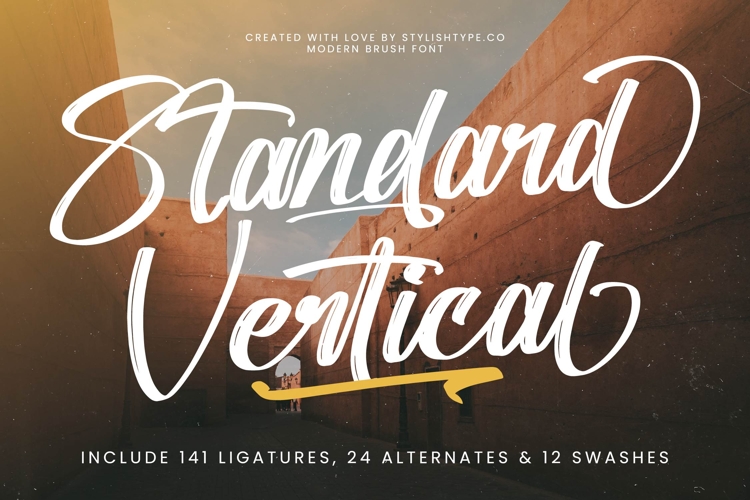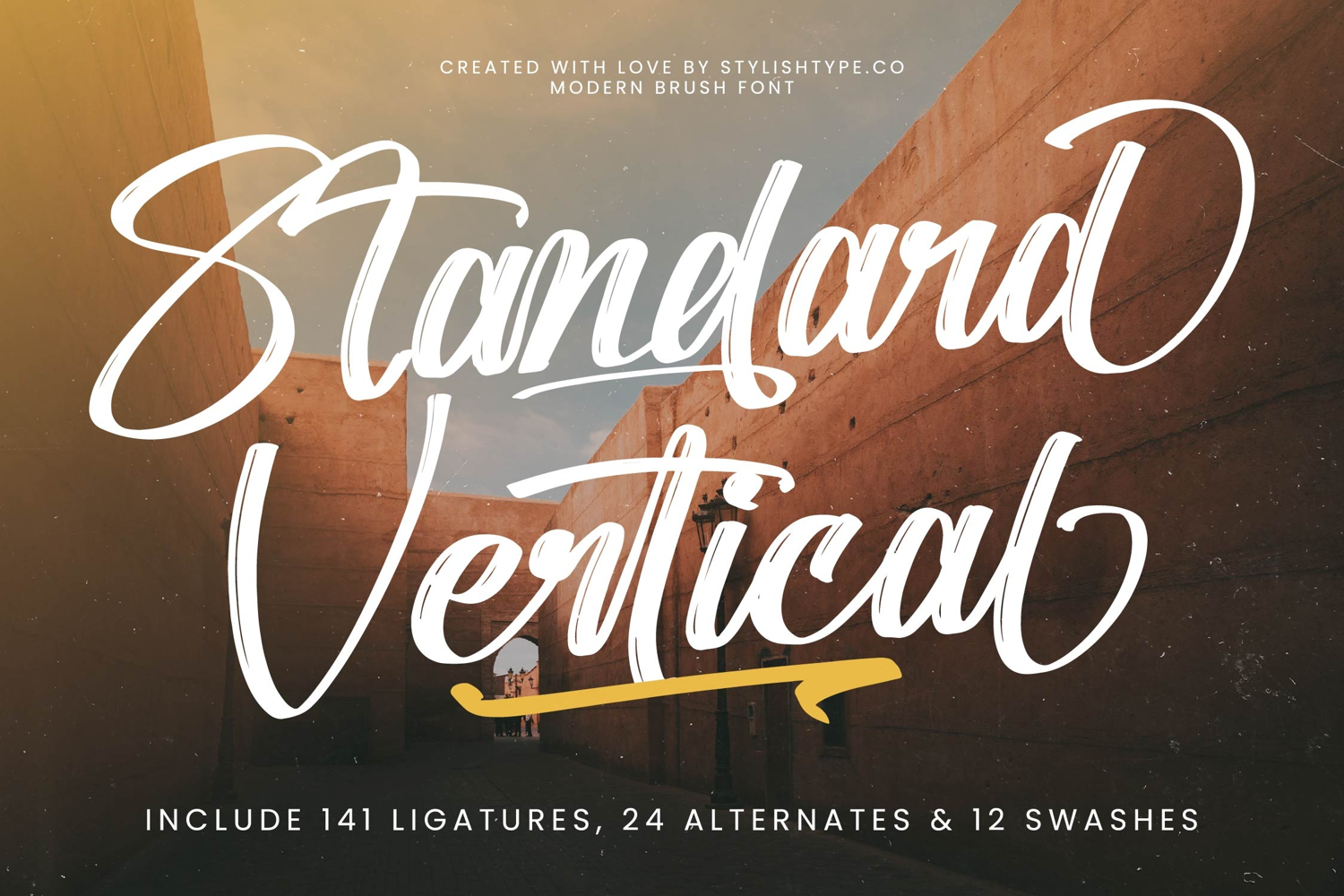
Standard Vertical - Modern Brush Font
Unlock unparalleled design impact with Font Standard Vertical - Modern Brush Font Script, a dynamic, expressive typeface. This modern brush font script captures the authentic hand-crafted spirit, blending spontaneous energy with refined elegance. Its high-contrast strokes and natural flow instantly command attention, delivering a distinctive aesthetic. Experience the raw beauty and artistic flair of genuine brushwork, meticulously digitized.
Dive into limitless creative possibilities with Font Standard Vertical - Modern Brush Font Script, engineered for maximum customization and unique typography. This font boasts an impressive array of OpenType features, including 141 ligatures, 24 alternates, & 12 swashes, allowing for truly bespoke headlines and text. These options ensure fresh, original, and impactful designs, solidifying its exceptionally versatile status.